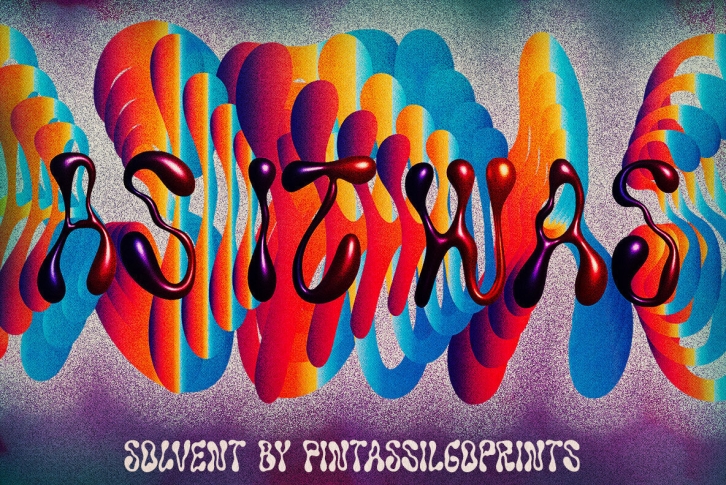
Solvent is a fluid font, somewhat liquid, somewhat viscous, slick, super decorative. It's an all-caps font with two design options for each letter – turn on the Contextual Alternates feature to instantly cycle these. There are yet stylistic alternates for the letters g, y, and z.
Solvent comes in two styles, regular and bold, and is surely a great pick for creative compositions such as packaging, apparel, album covers, books, greetings cards, posters, branding and so many more.
Try Solvent fonts, liquefy your designs, turn up the sound, and keep on creating!